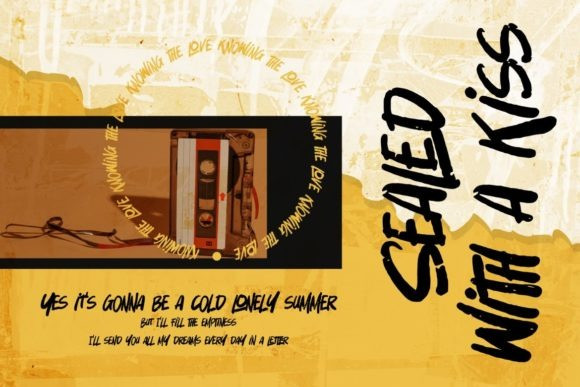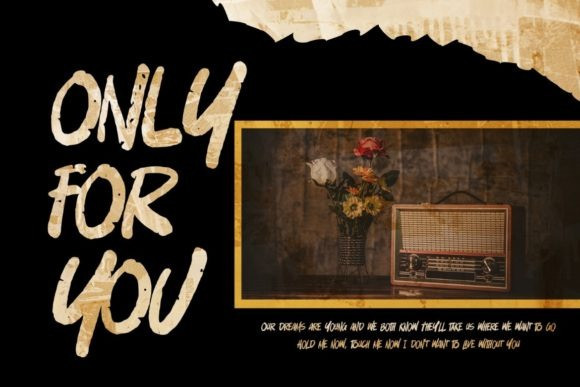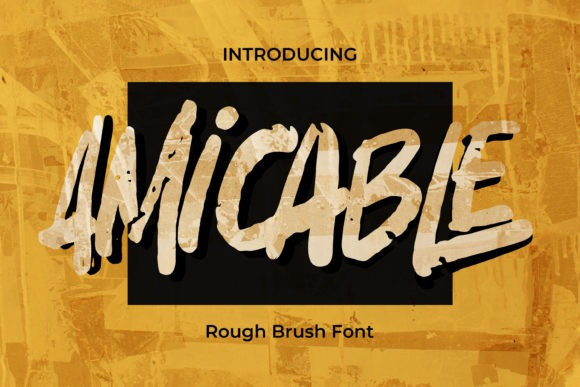
Amicable Font
Amicable Display Font is a cool, street styled, rough textured display font. This font is suitable for designs such as t-shirts, sportswear, logos, advertisements, clothing, and more.